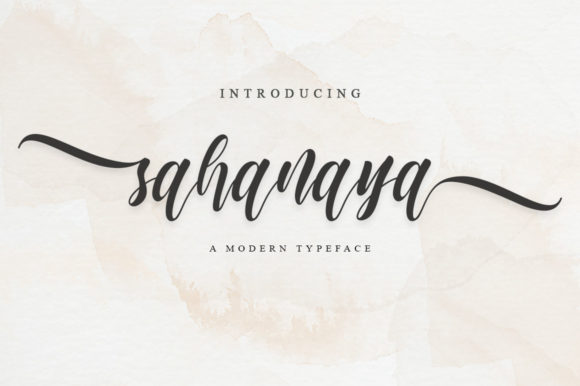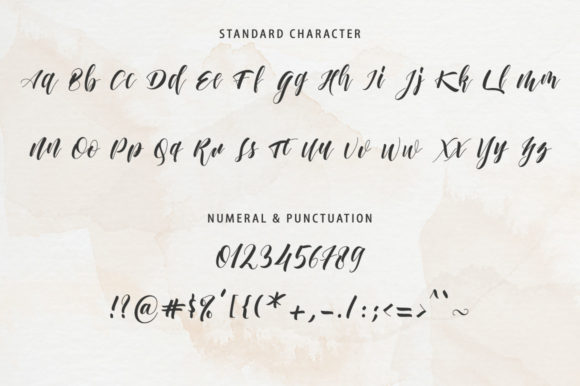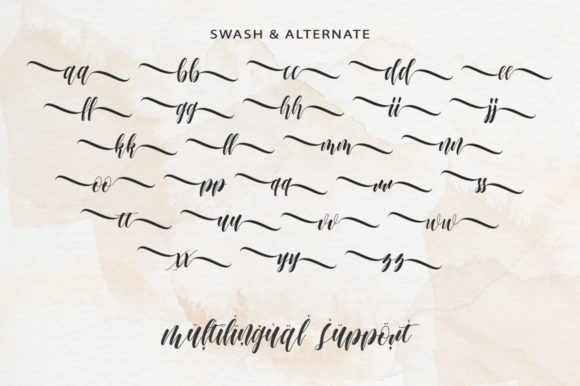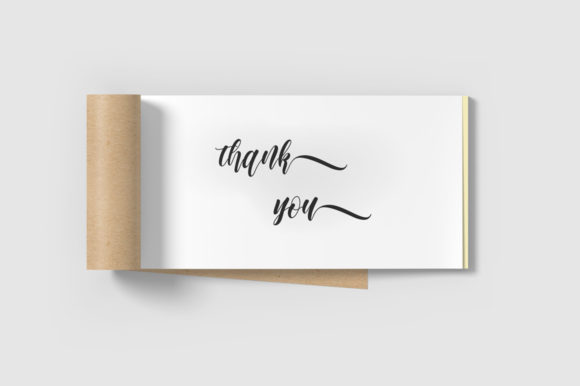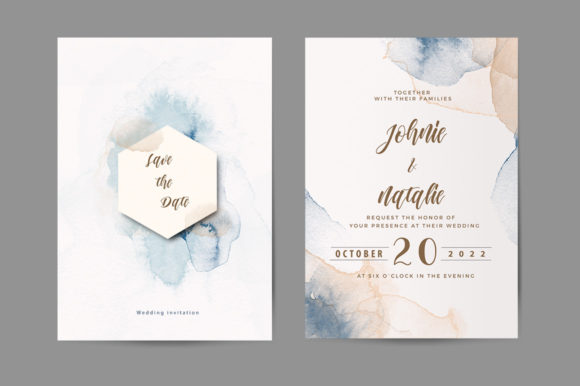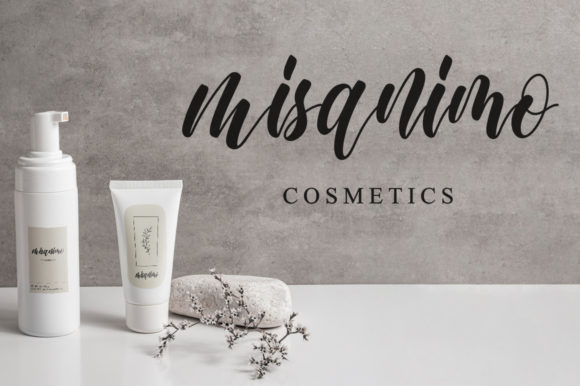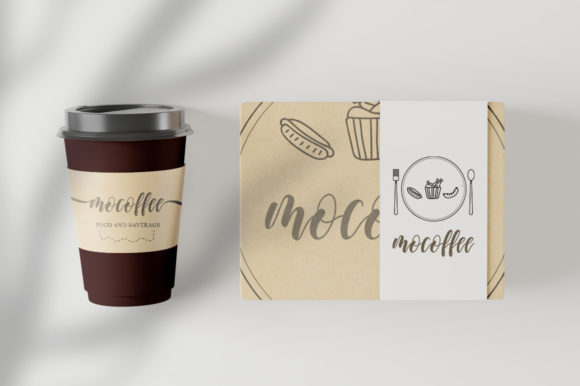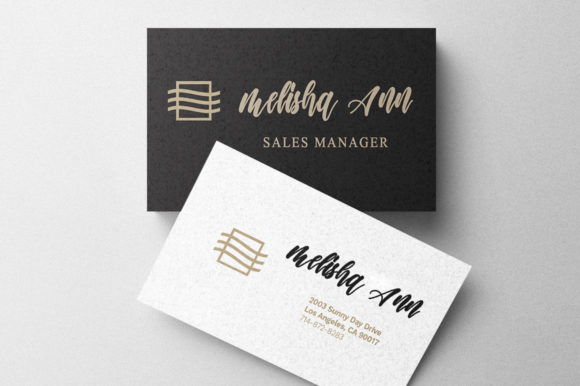
Sahanaya Script Font
About Sahanaya Script Font
Sahanaya Script is a fashionable and light handwritten font. Trendy and stylish, this font will elevate each of your creations. Sahanaya Script is PUA encoded which means you can access all of the glyphs and swashes with ease!